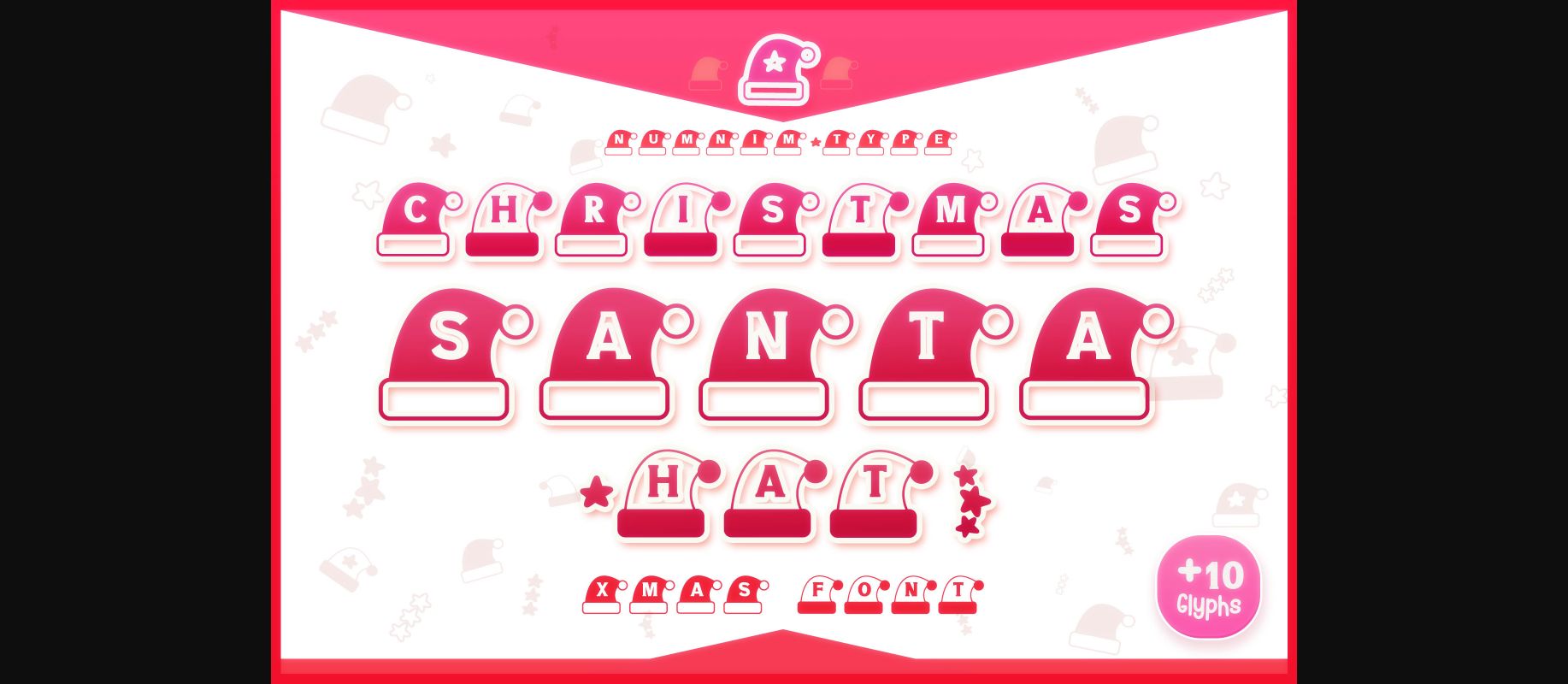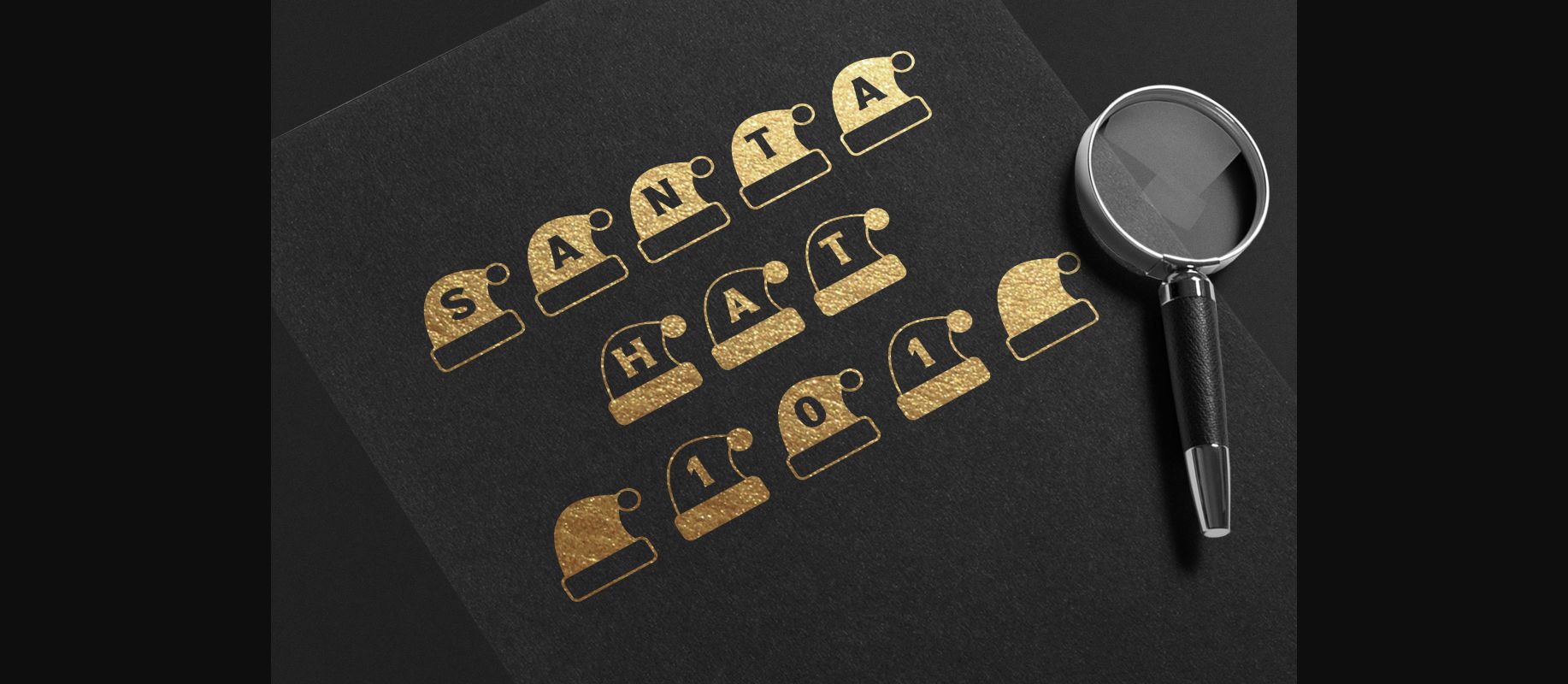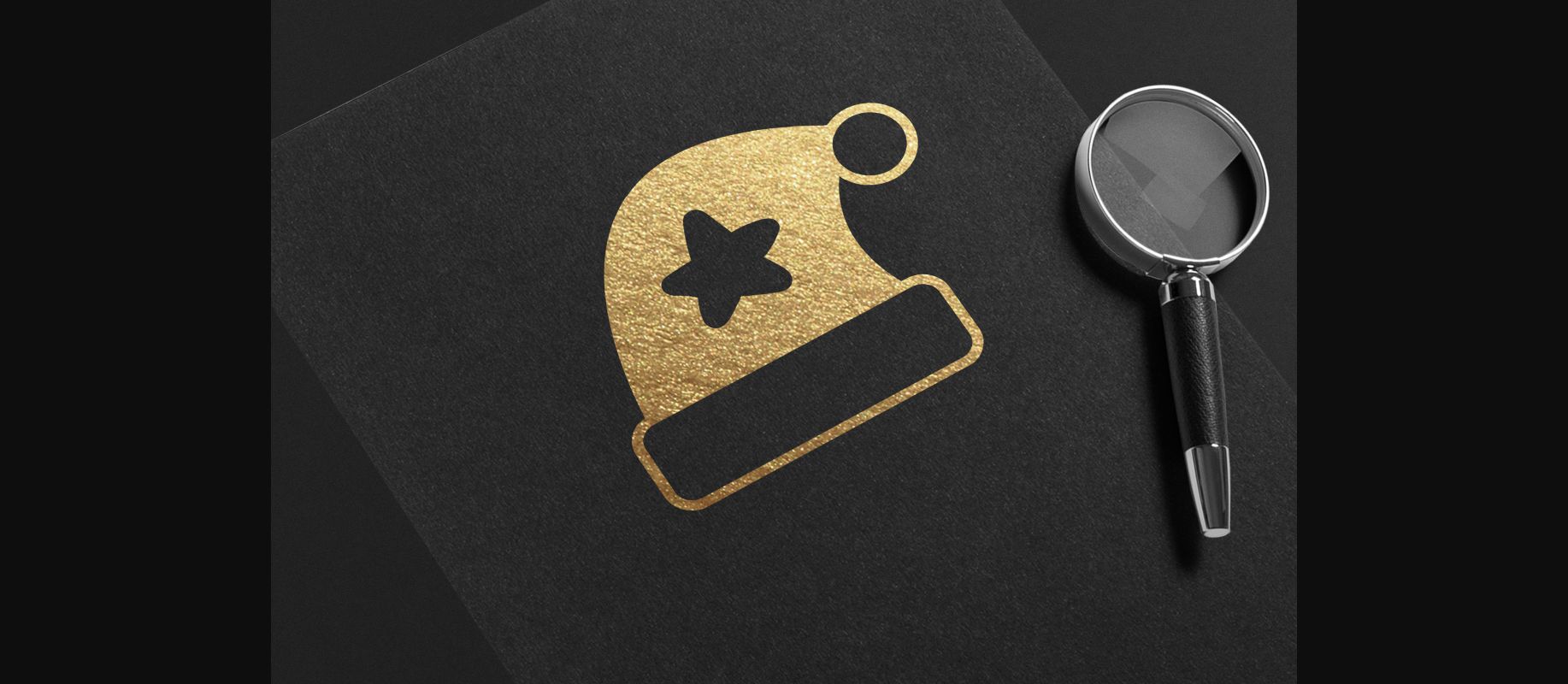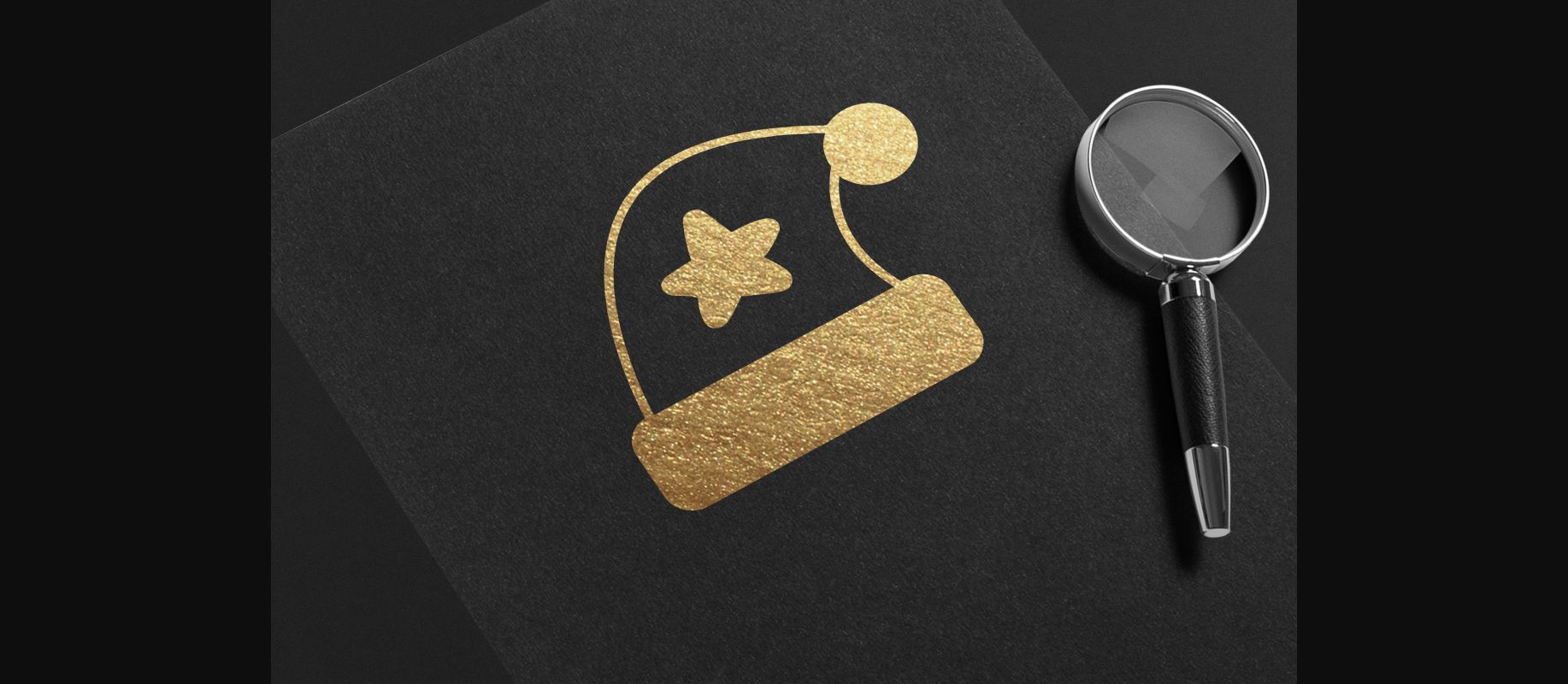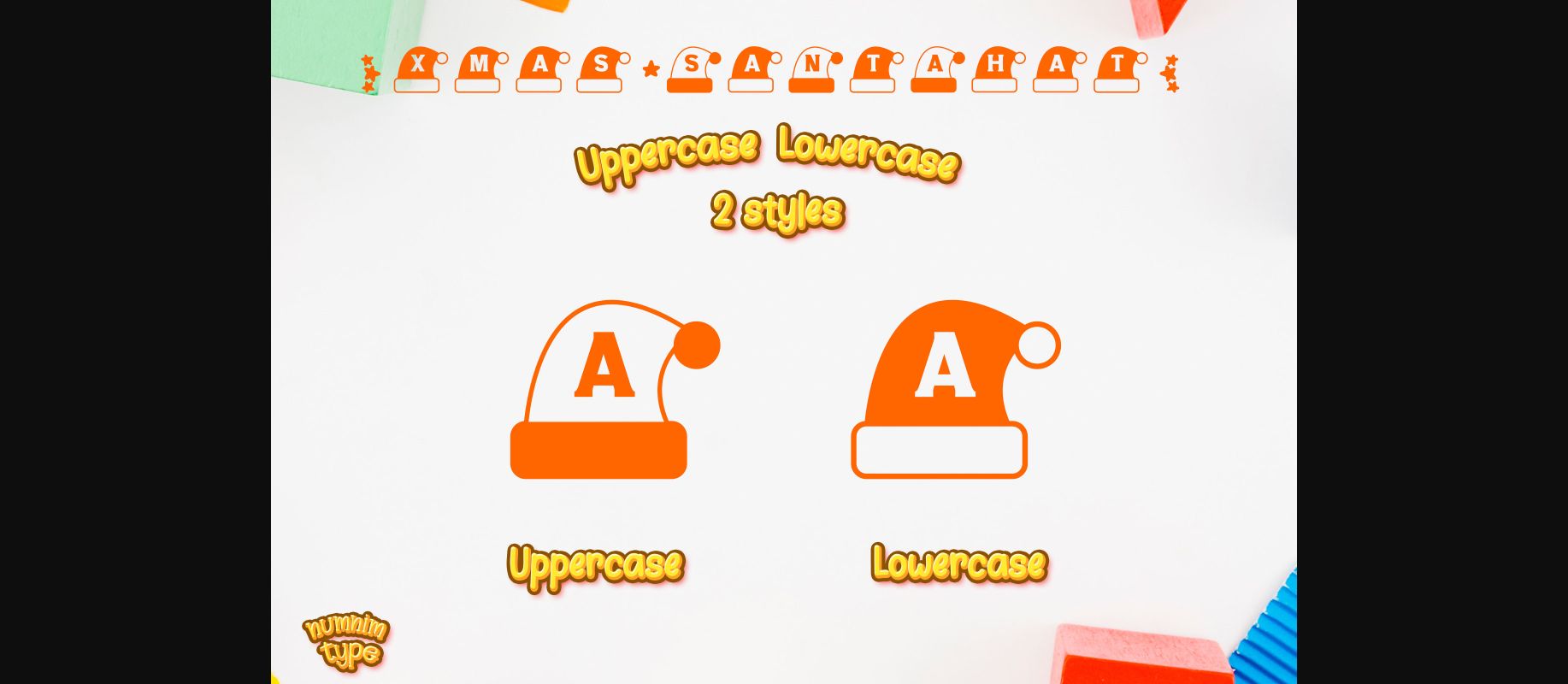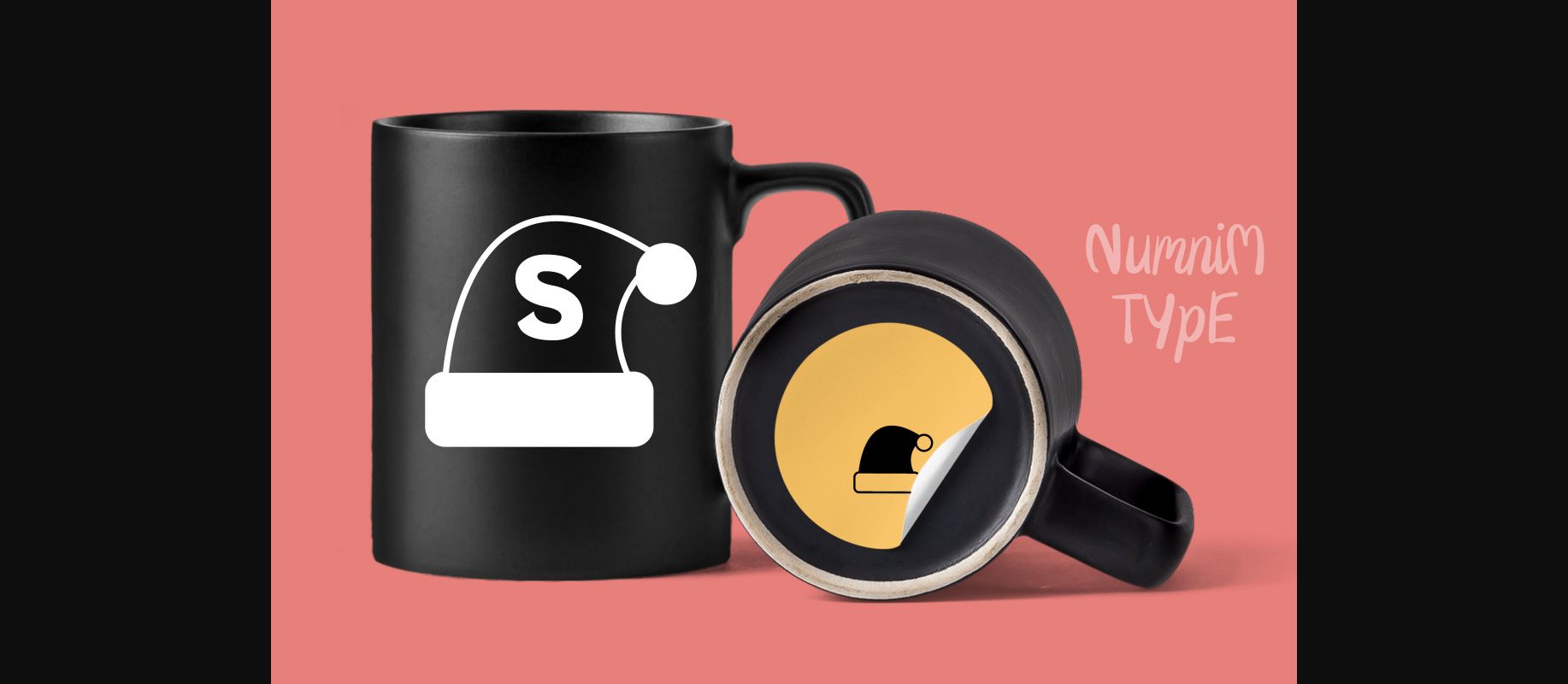
Christmas Santa Hat Font
About Christmas Santa Hat Font
Christmas Santa Hat is a sweet and festive decorative font. Add it to each of your winter holiday designs and notice how easily they come to life. Christmas Santa Hat is PUA encoded which means you can access all of the glyphs and swashes with ease!